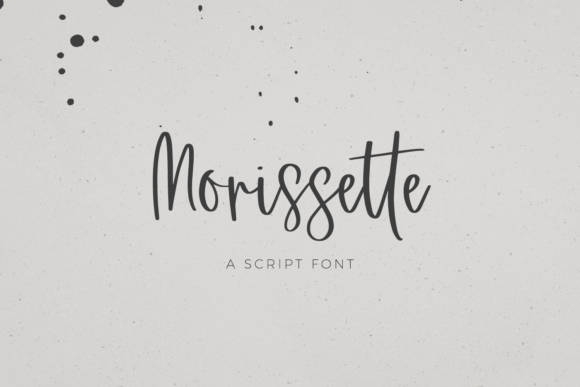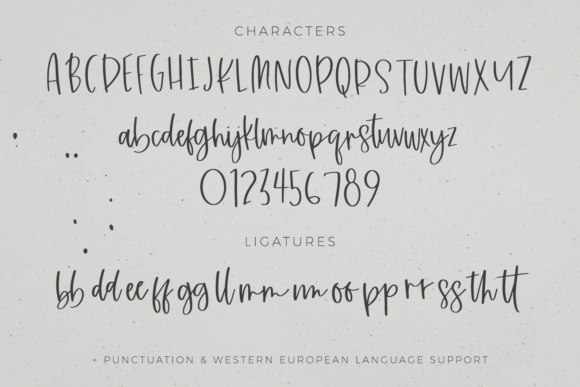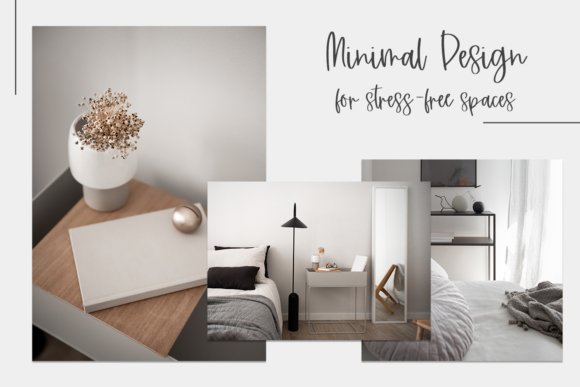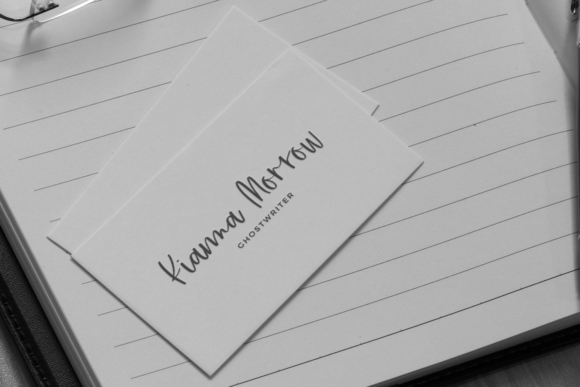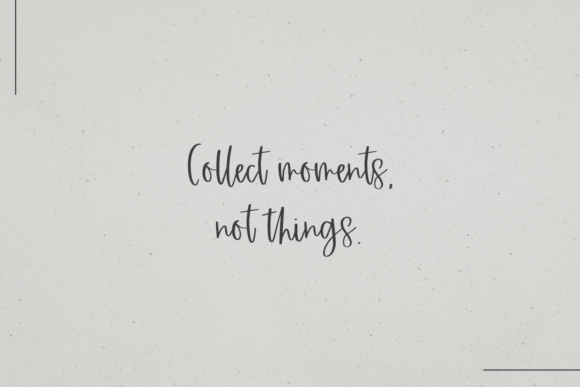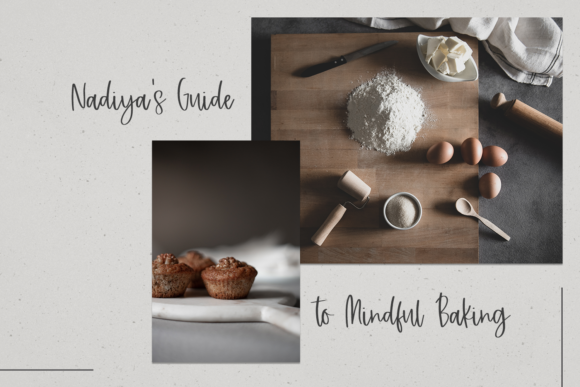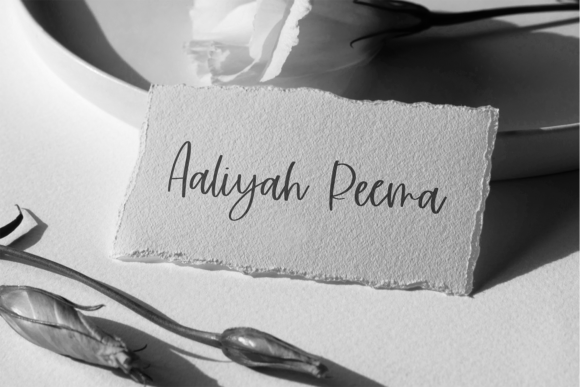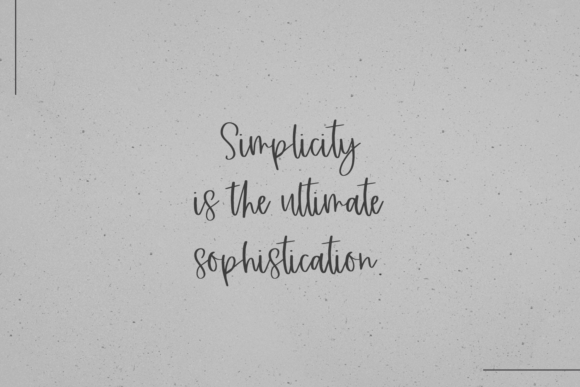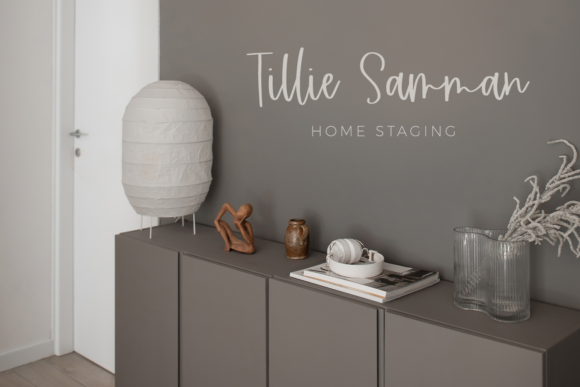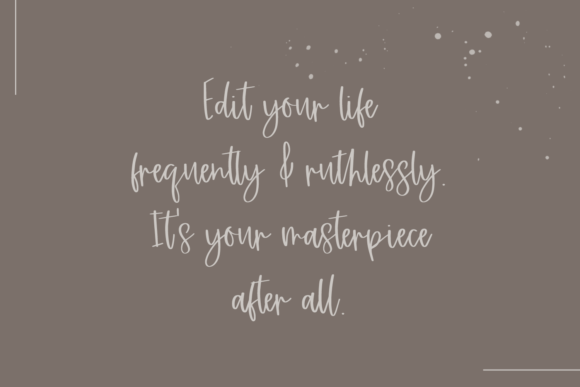
Morissette Font
About Morissette Font
Morissette: Embrace the Distinct, Delicate, and Timeless Handwritten Font
Introducing Morissette, a font that stands out with its distinct and delicate handwritten style, bringing a timeless charm to your designs. Whether you’re crafting enchanting wedding invitations, heartfelt thank you cards, inspiring quotes, captivating logos, sophisticated business cards, or any other project that calls for a handwritten touch—Morissette is the perfect choice. Its captivating beauty makes it look stunning in various design contexts, adding a touch of elegance and personality to each piece.
The allure of Morissette lies in its incredibly distinct and delicate appearance. Each letter is meticulously crafted to showcase a unique and timeless elegance that captures the eye.
Designing with Morissette is a delightful experience. Its delicate strokes and thoughtful design bring an air of refinement to your creations, making them stand out with effortless allure.
Fall in love with Morissette’s versatility. Whether you’re designing for joyful occasions or conveying heartfelt sentiments, this font seamlessly adapts to complement your creative vision.
Gorgeous designs come to life with Morissette’s captivating style. Whether you’re crafting wedding invitations that exude romance or designing logos that leave a lasting impression, this font adds a touch of beauty that captures hearts.
In conclusion, Morissette is more than just a font; it’s an incredibly distinct and delicate masterpiece that invites you to embrace the art of creativity. Embrace its timeless elegance, and let it become the heart of your most cherished projects. Whether you’re celebrating love, expressing gratitude, or engaging in any creative endeavor, Morissette will be your trusted companion, adding a touch of uniqueness and charm. Allow this font to unlock the full potential of your creativity, and watch as your designs come alive with the captivating and timeless spirit of Morissette. Fall in love with its delicate allure, and let it be the guiding light that leads you to create truly spectacular designs that leave a lasting impact on all who behold them.